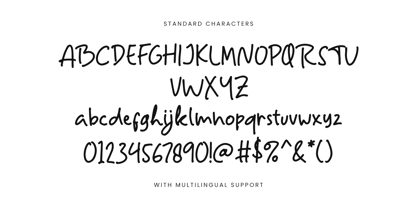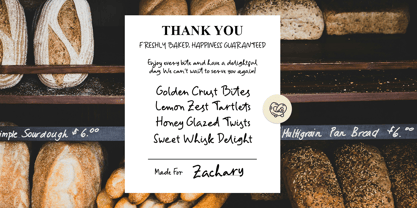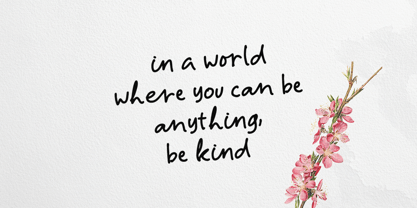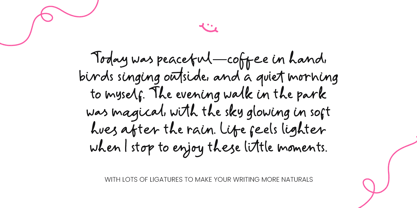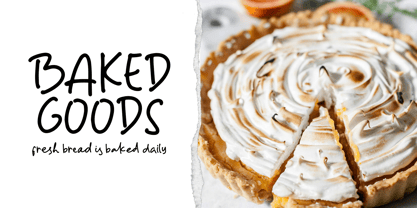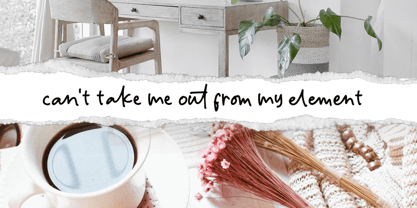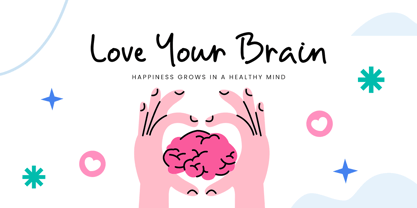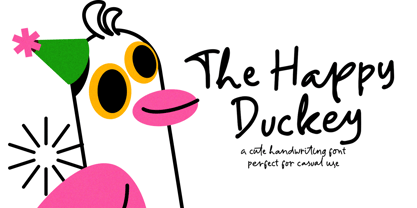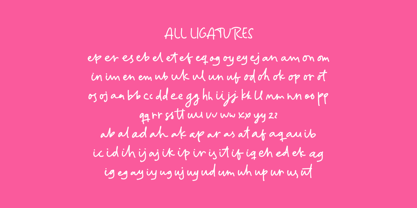
The Happy Duckey
by Letterhend
The The Happy Duckey Font Family was designed by Hendry Juanda and published by Letterhend. The Happy Duckey contains 1 styles. More about this family
The Happy Duckey is a playful and charming handwritten font designed to bring joy and personality to your creative projects. With its casual and slightly irregular strokes, this font mimics the natural flow of handwriting, making it perfect for fun, friendly, and lighthearted designs. The rounded edges and smooth curves add warmth, while its quirky character shapes give it a whimsical, cheerful vibe.
Features :
• Uppercase & lowercase
• Numbers and punctuation
• Multilingual support